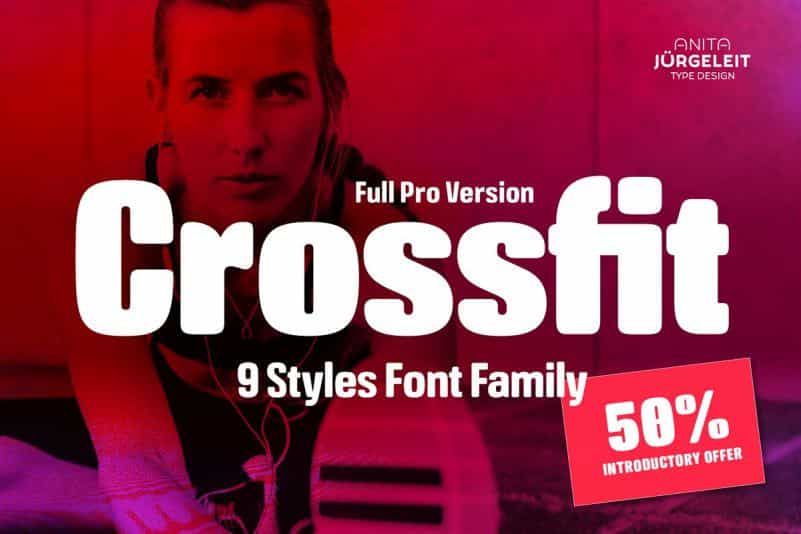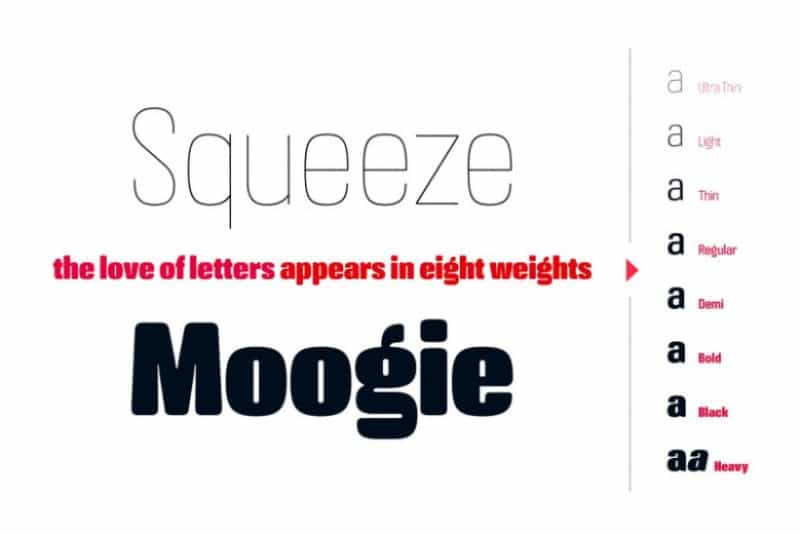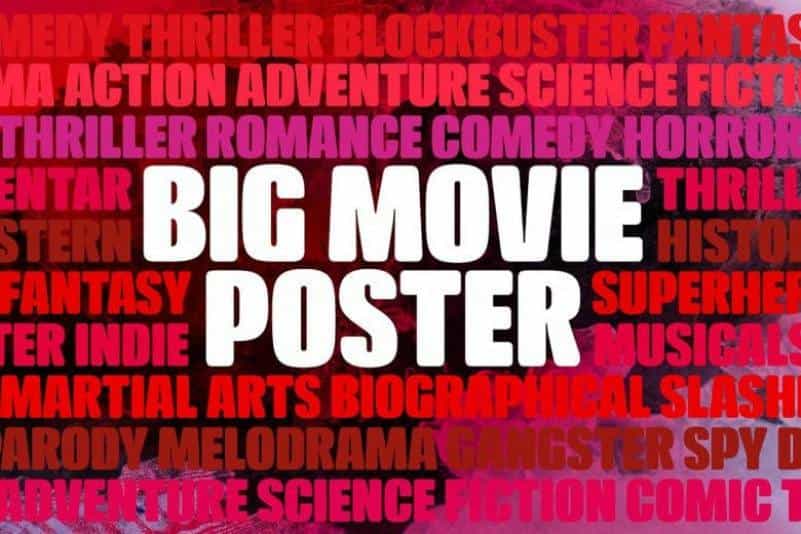
Introducing Crossfit Font. It is made and introduced by Anita Jurgeleit. Crossfit Font Family is a new headline font for large sizes, such as big movie posters, advertising or editorials. The topics that can be matched might be adventures, sports, strong nature and all kinds of challenging life events.